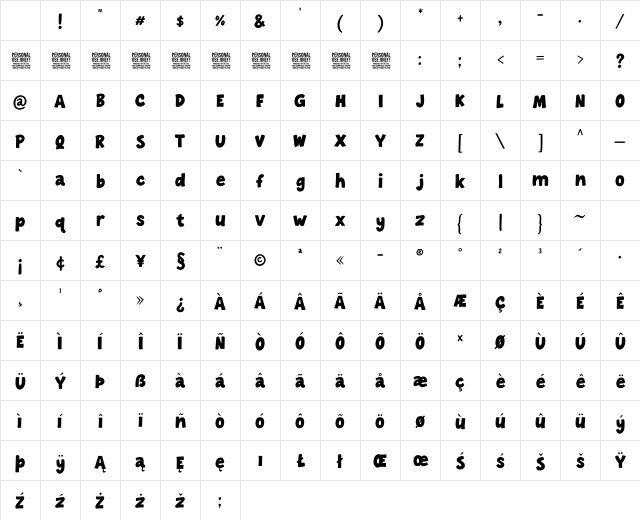
Complete Everink Loose - Personal Use Regular glyph index. Displaying only characters natively supported by Everink Loose - Personal Use Regular font.
Everink Loose - Personal Use is a composed and adaptable typeface that performs quietly and consistently across a wide range of design contexts.